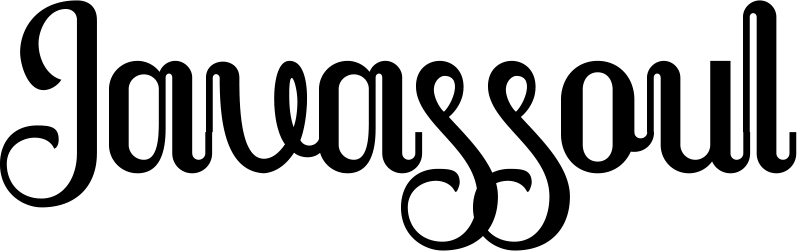
Javassoul Font
Javassoul is a retro font in which all its characters are designed in two different styles and in this regard adds an acceptable variety to your graphic work. The edges of this font are elongated and angled, so it looks very stylish, thus it conveys a sense of creativity, intimacy, and comfort to the audience, so it is ideal to edit photos and videos.